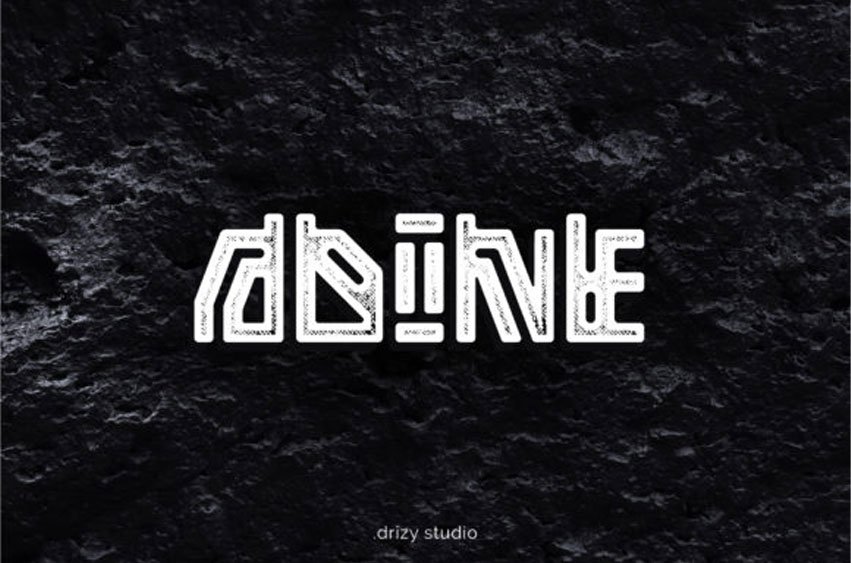
Adine Font is a bold and tribal font with a contemporary feel.
It will add an adventurous feel to any design project.
Adine Font is a bold and tribal font with a contemporary feel.
It will add an adventurous feel to any design project.